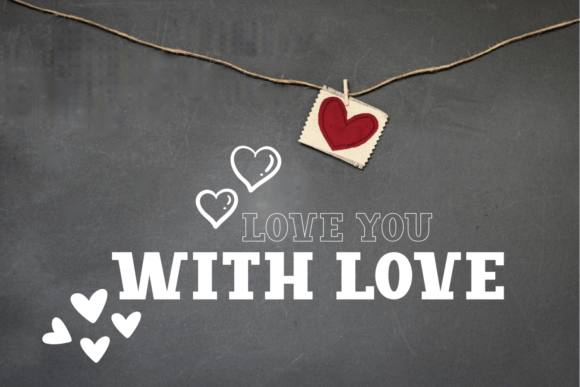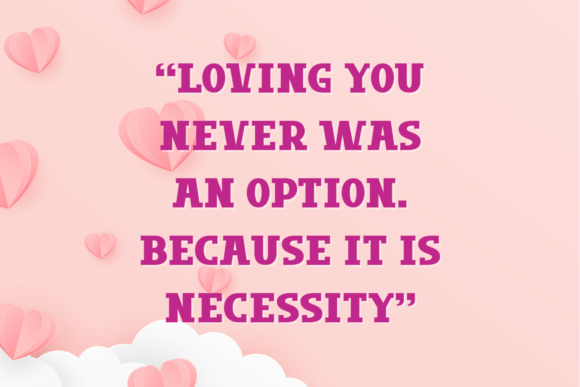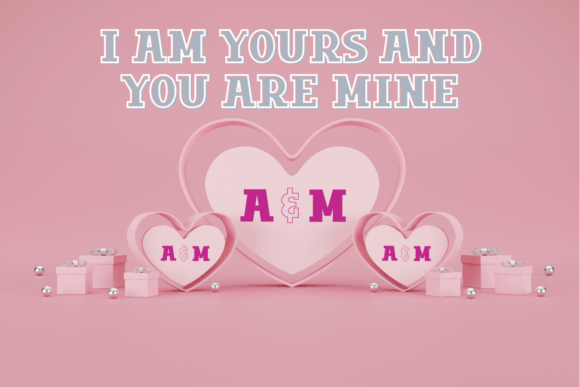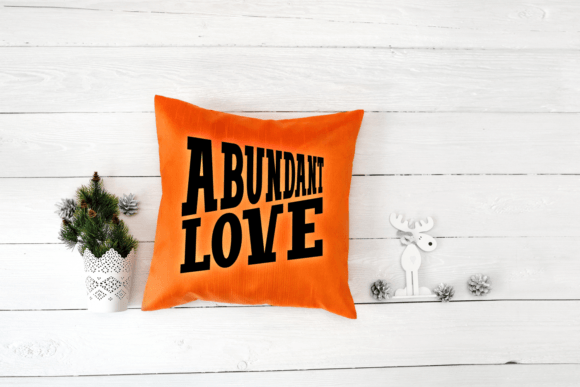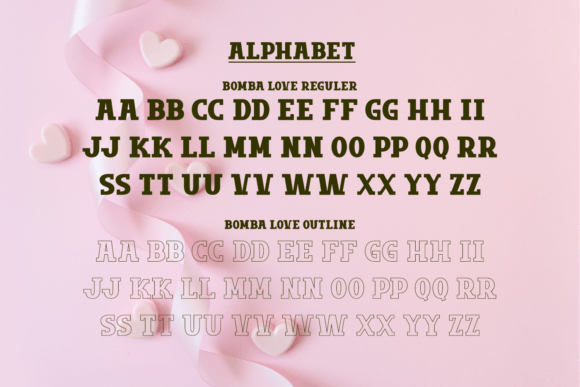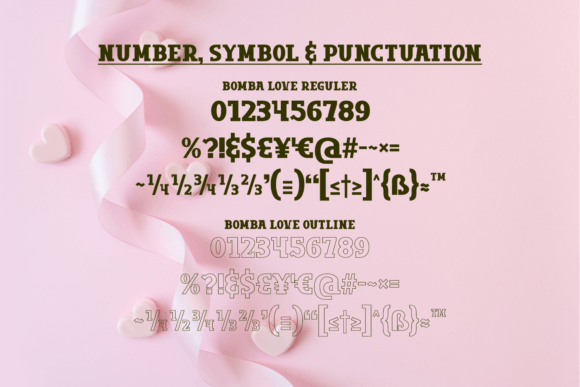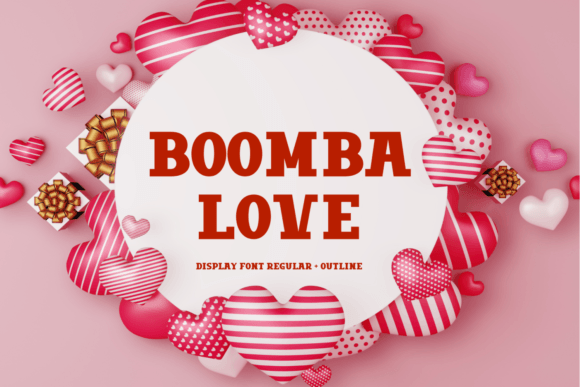
Introducing Boomba Love Font: The Ultimate Display Font for Fun and Playfulness
Are you tired of using the same old fonts for your designs? Do you want to add a burst of fun and energy to your projects? Look no further than Boomba Love Font, a lively display font that’s perfect for designers and crafters who want to make a statement. In this article, we’ll dive into the world of Boomba Love Font and explore its features, benefits, and uses.
What is Boomba Love Font?
Boomba Love Font is a bold and playful display font that’s designed to bring a cheerful touch to any project. Its energetic style makes it perfect for designs that need a bit of personality, from invitations and posters to social media graphics and more. With its fun and lively characters, Boomba Love Font is sure to grab attention and leave a lasting impression.
Key Features of Boomba Love Font
- Bold and Playful Characters: Boomba Love Font features bold and playful characters that are sure to add a burst of fun to your designs.
- Energetic Style: The font’s energetic style makes it perfect for designs that need a bit of personality and flair.
- Versatile: Boomba Love Font is versatile and can be used for a wide range of projects, from invitations and posters to social media graphics and more.
- Easy to Read: Despite its bold and playful style, Boomba Love Font is easy to read, making it perfect for designs that need to communicate a message.
Benefits of Using Boomba Love Font
- Adds Personality to Your Designs: Boomba Love Font adds a splash of personality to your designs, making them stand out from the crowd.
- Conveys Positivity and Fun: The font’s playful and energetic style conveys positivity and fun, making it perfect for designs that need to evoke a sense of joy.
- Perfect for Creative Projects: Boomba Love Font is perfect for creative projects, such as invitations, posters, and social media graphics.
Uses of Boomba Love Font
Boomba Love Font is versatile and can be used for a wide range of projects, including:
- Invitations: Use Boomba Love Font to create fun and playful invitations for parties, weddings, and other special events.
- Posters: The font is perfect for creating eye-catching posters for events, promotions, and more.
- Social Media Graphics: Use Boomba Love Font to create engaging social media graphics that stand out from the crowd.
- Crafting Projects: The font is also perfect for crafting projects, such as scrapbooking, card making, and more.
Tips for Using Boomba Love Font
- Use it for Headlines: Boomba Love Font is perfect for headlines and titles, where its bold and playful style can really shine.
- Experiment with Colors: The font looks great in a variety of colors, so don’t be afraid to experiment and find the perfect hue for your design.
- Pair it with Other Fonts: Boomba Love Font can be paired with other fonts to create a unique and interesting look.
| Font Name | Boomba Love Font |
| Author | Yan (7NTypes) |
In conclusion, Boomba Love Font is a lively display font that’s perfect for designers and crafters who want to add a burst of fun and energy to their projects. With its bold and playful characters, energetic style, and versatility, Boomba Love Font is sure to become a favorite in your font collection. So why not give it a try and see how it can add a splash of personality to your designs?